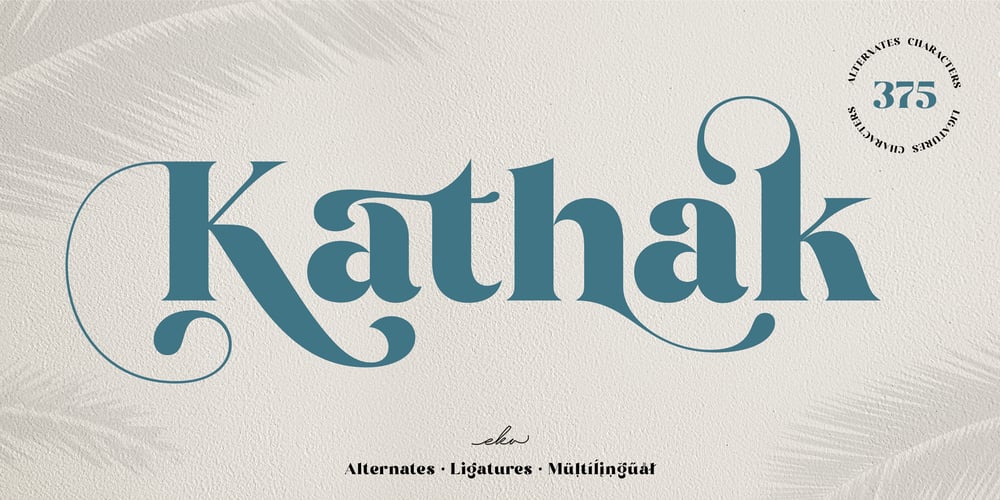
Kathak
Kathak font
Kathak Font Family was designed by Putu Eka Hermawan and published by Ekahermawan. Kathak contains 1 styles and family package options. Please welcome Kathak. Kathak is a display serif font. Kathak is specially designed to make your typography design result looks more beautiful with tons of alternates and ligatures characters. Kathak is versatile font for many different projects such as logo, branding, poster, magazines, labels, merchandise, invitation, presentation, advertising, quotes and so much more!FEATURES: OpenType support Playfull to use (with ligatures and alternates options) Multilingual support PUA Encoded If you need support or more information about this item, please kindly contact me : ekahermawanputu@gmail.comThank you so much.. I really hope you enjoy when using it!